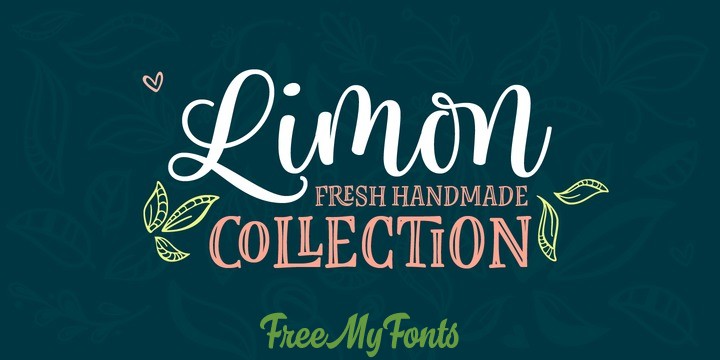
Limon;limon font;limon free font;limon download free font;cool font;script fonts;ttf;free ttf;font ttf;freeware;typefaces;typography;dingbats;typeface;fonts;true. Information about the font limon script and where to buy it. For commercial use please contact owner. Download link zip archive report broken link. Limon script matches very well with dress. Limon is a beautiful option for menus, magazine covers, wedding invitations, cards and all kind of stationery, packaging and labels. Buy this font online from
Free fonts often have not all characters and signs. Limon;limon font;limon free font;limon download free font;cool font;script fonts;ttf;free ttf;font ttf;freeware;typefaces;typography;dingbats;typeface;fonts;true. Limon was entirely hand drawn and carefully digitised to get accurate curves but keeping the handmade look. 00 february 21, 2013, initial release limon. ◄ go back to free fonts. Take a look at our latest release! Limon std script bold font information. We found 0 limon script fonts for your available for windows and mac os in ttf and otf. American lemon script free font is a monoline script font with perfect sans serif pair. Download the lemon font by eduardo tunni.